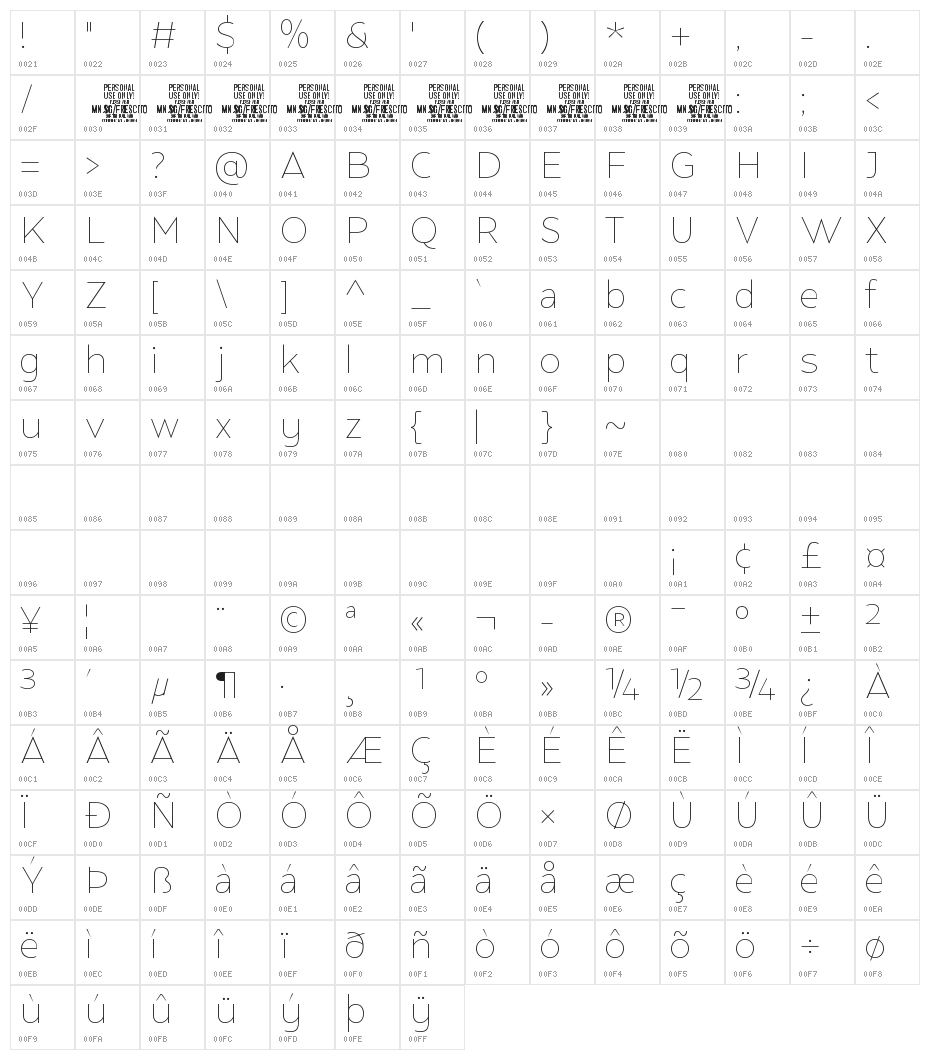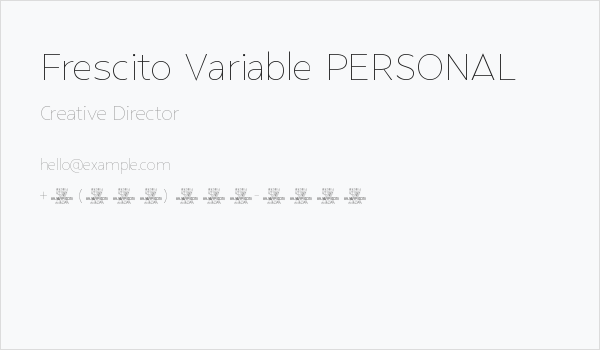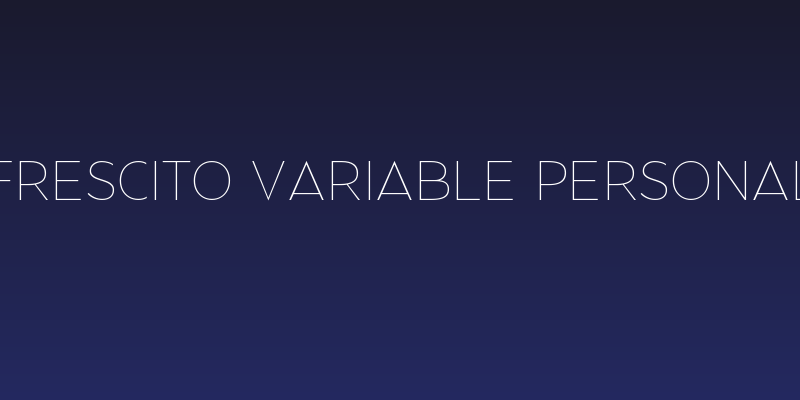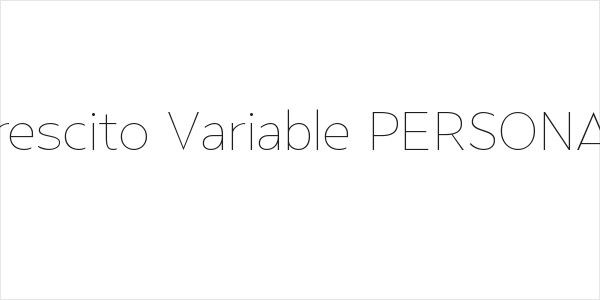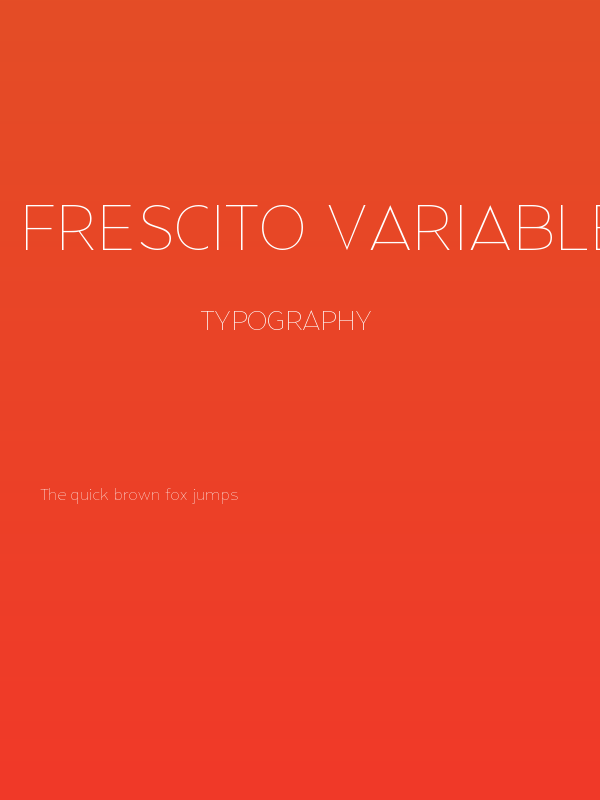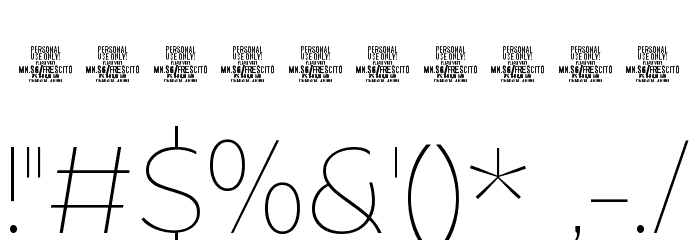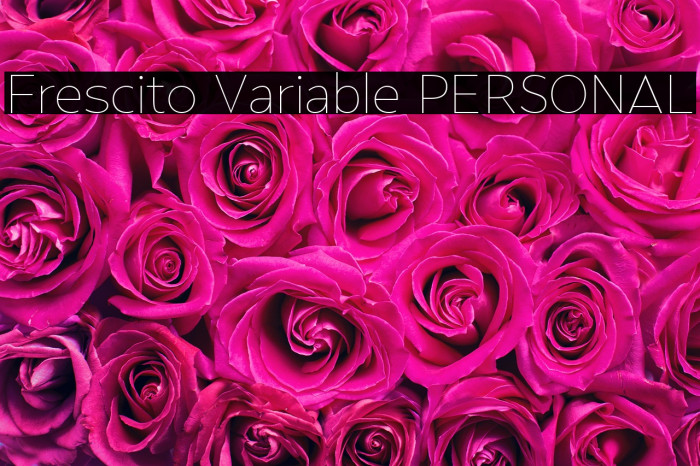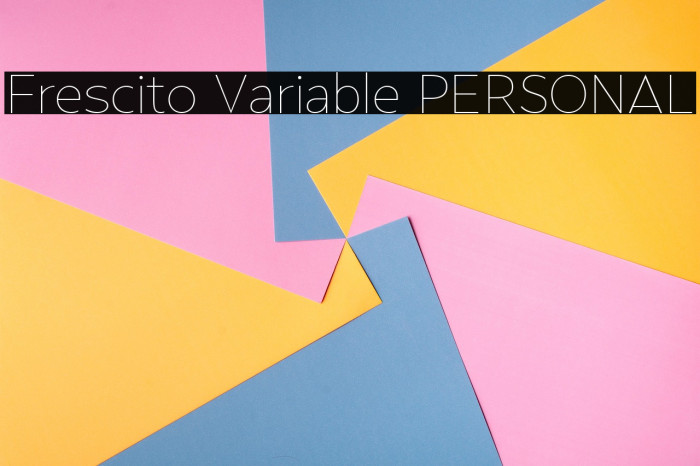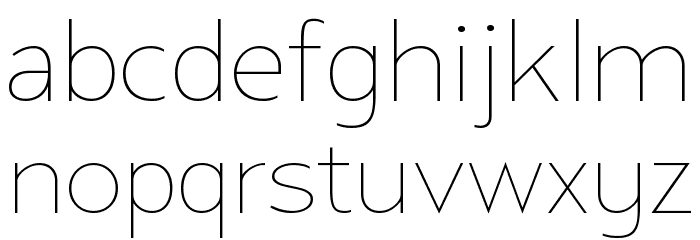
Frescito Variable PERSONAL Font
Frescito Variable PERSONAL Description
This font features a clean and modern sans-serif style with a minimalist aesthetic. The characters are thin and evenly weighted, providing a sleek and elegant appearance. The uppercase and lowercase letters maintain a consistent height and width, contributing to a harmonious and balanced look. The numerals and special characters are designed with the same attention to detail, ensuring readability and visual appeal. The overall design is versatile, making it suitable for a variety of applications where clarity and sophistication are desired.